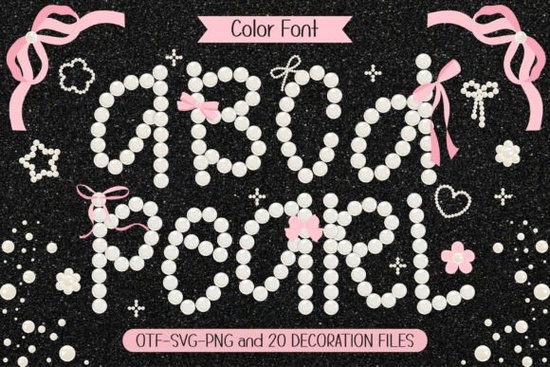
Designers, crafters, and small business owners looking for a unique way to add a feminine touch to their projects might find the Pearl Font to be a perfect addition to their toolkit. This font, with its soft white color and preppy style, brings a sense of elegance and playfulness that’s hard to match. Whether you’re working on custom T-shirts, DIY crafts, or personal branding, the Pearl Font offers a versatile solution that stands out.
The Pearl Font is ideal for anyone who wants to incorporate a girly aesthetic into their work. Its design is inspired by the natural beauty of pearls, with each letter carrying a subtle shine that adds a touch of class. The font also includes doodle elements like pearl shapes and pink ribbons, making it easy to create personalized designs that feel extra special. These details can be used to enhance logos, invitations, or any project where a delicate, stylish look is needed.
If you're searching for fonts that combine charm with functionality, the Pearl Font is worth exploring. It fits well within the category of colorful fonts, offering a fresh take on traditional typography. The font’s soft color palette and playful elements make it a great choice for those who want to stand out without being too bold. Its versatility allows it to work in both digital and print formats, making it a valuable resource for a wide range of creative applications.
What makes the Pearl Font stand out?
The Pearl Font distinguishes itself through its unique blend of elegance and cuteness. Unlike many other fonts that lean heavily toward one style or the other, this one manages to balance both. The soft white color gives it a clean, modern look, while the preppy design adds a sense of whimsy. This combination makes it suitable for a variety of projects, from wedding invitations to children’s book illustrations.
One of the standout features of the Pearl Font is the inclusion of doodle elements. These small, decorative touches like pearl shapes and pink ribbons can be used to add visual interest to your designs. They provide an extra layer of creativity, allowing you to personalize your work in ways that standard fonts don’t support. Whether you're creating a logo, a social media graphic, or a custom name tag, these elements help bring your vision to life.
How to use the Pearl Font in your projects
There are countless ways to use the Pearl Font depending on your creative goals. For example, if you're designing T-shirts, you can use the font to create cute, personalized text that adds a feminine flair. It works well for names, slogans, and even short phrases that need to stand out. The font’s soft color and playful style make it ideal for anything related to girls, babies, or romantic themes.
In the realm of DIY crafts, the Pearl Font can be used to decorate items like mugs, notebooks, and greeting cards. Its doodle elements can be printed or hand-drawn, giving your projects a handmade feel. This makes it a great choice for those who want to add a personal touch to their creations without spending too much time on design details.
For print-on-demand sellers, the Pearl Font offers a way to differentiate products in a competitive market. By using this font, you can create designs that feel unique and high-quality. Whether you're selling on Etsy, Amazon, or a personal website, the font helps your products stand out and attract the right audience.
Where to find more fonts like Pearl Font
If you’re interested in exploring more fonts with similar styles, you can check out other options available on Creative Fabrica. The site has a wide selection of fonts that cater to different aesthetics, including playful, elegant, and modern designs. You can browse through their collection to find something that matches your creative needs.
Pearl Font is just one example of the many fonts available. By visiting the page, you can see how this font fits into the broader category of colorful fonts and discover other options that might suit your projects better.
Pearl Font is a great choice for anyone looking to add a touch of femininity and charm to their designs. Whether you're a designer, crafter, or small business owner, this font offers a unique way to express your creativity.
Before finalizing your decision, consider experimenting with the font in different contexts. Try using it in various projects to see how it performs and whether it meets your expectations. Once you’re satisfied, you can download and start using it right away. With its soft color, playful style, and added doodle elements, the Pearl Font is sure to become a favorite in your design library.